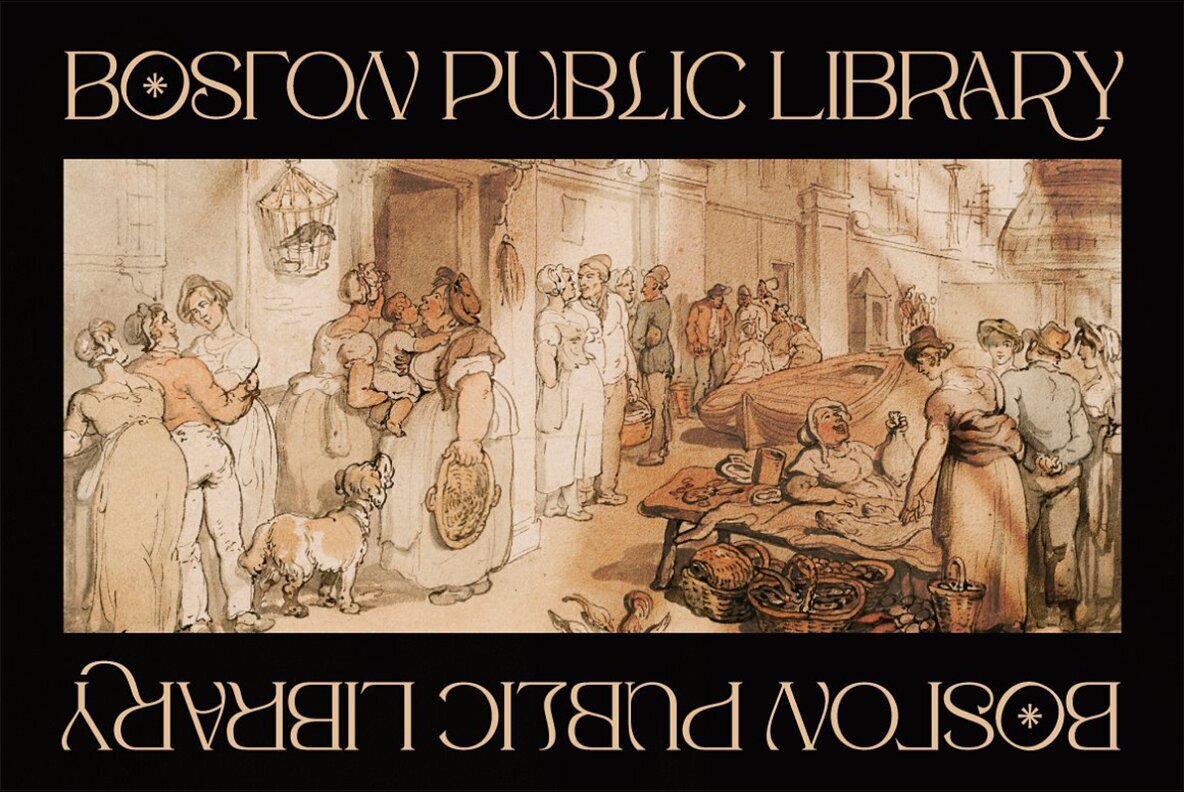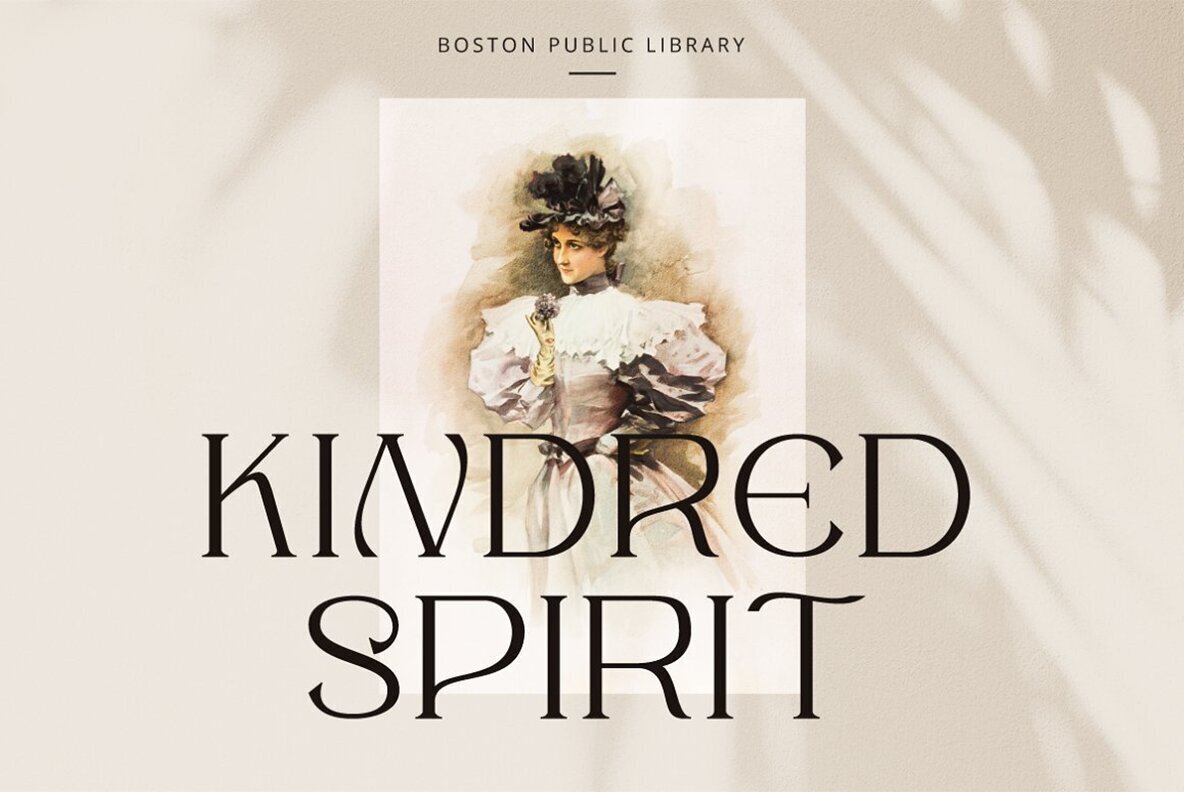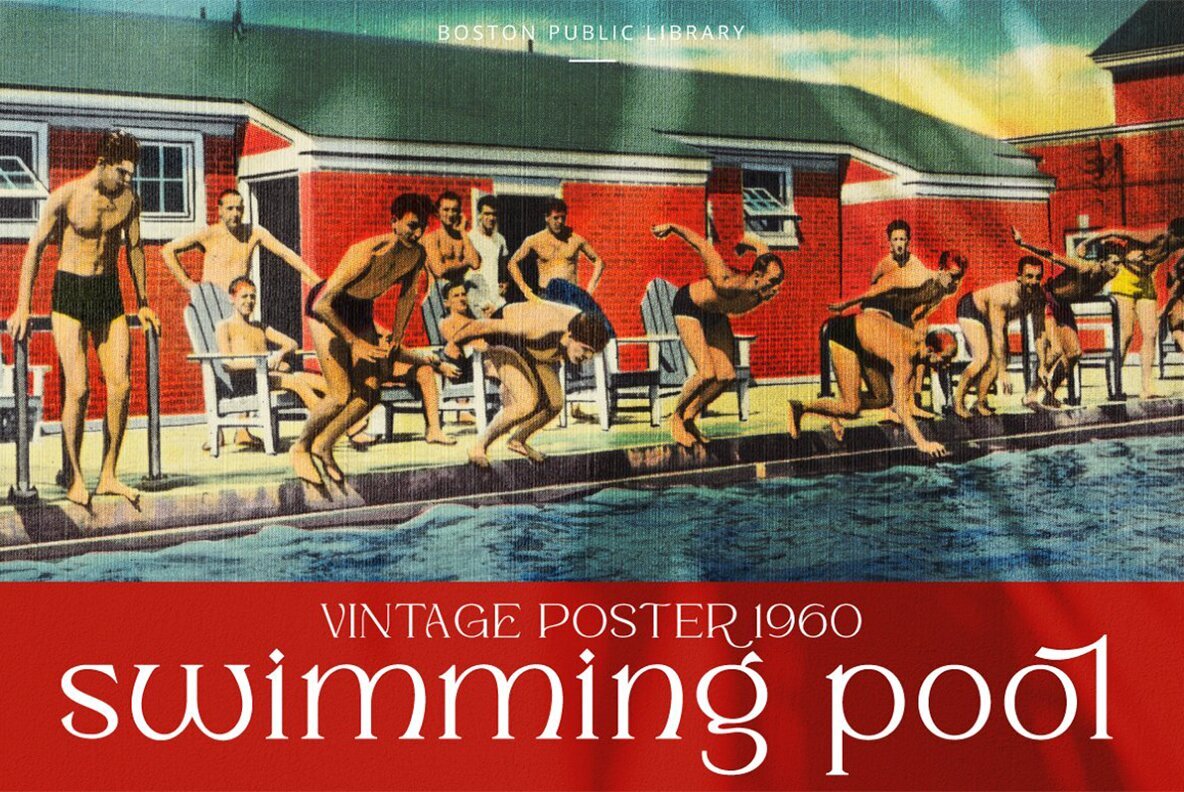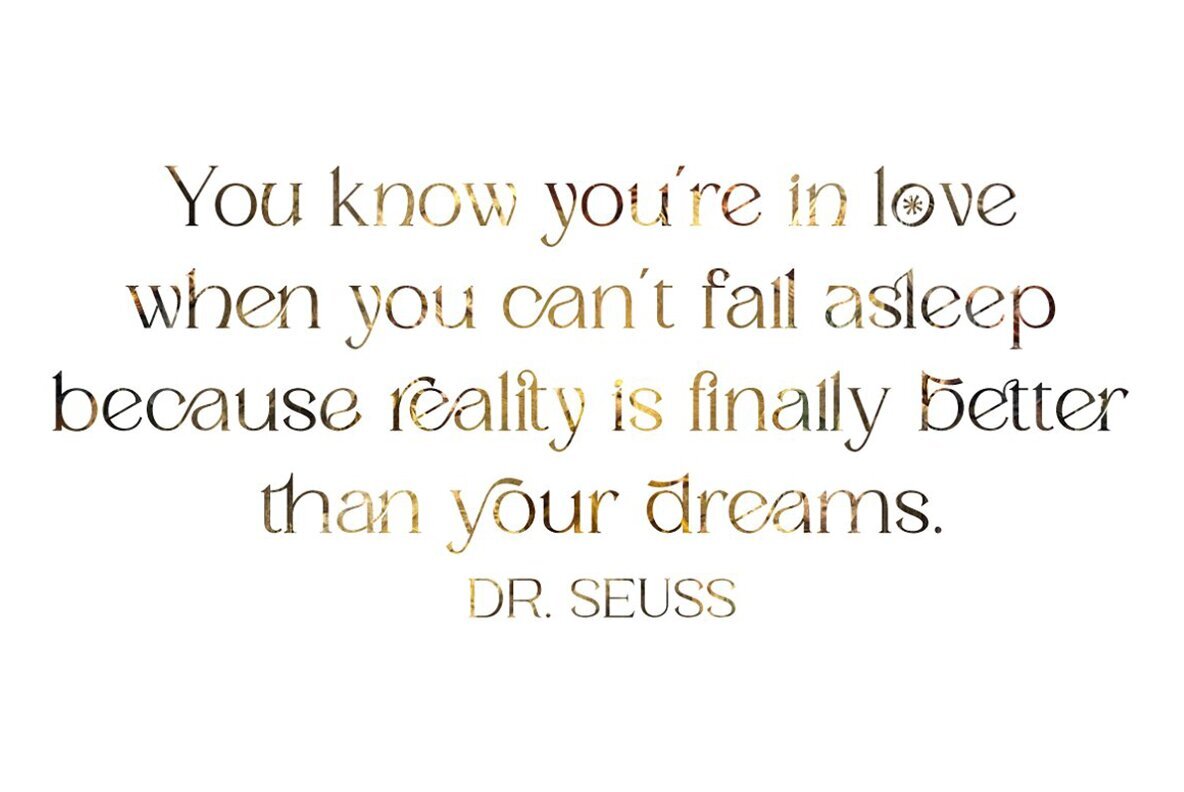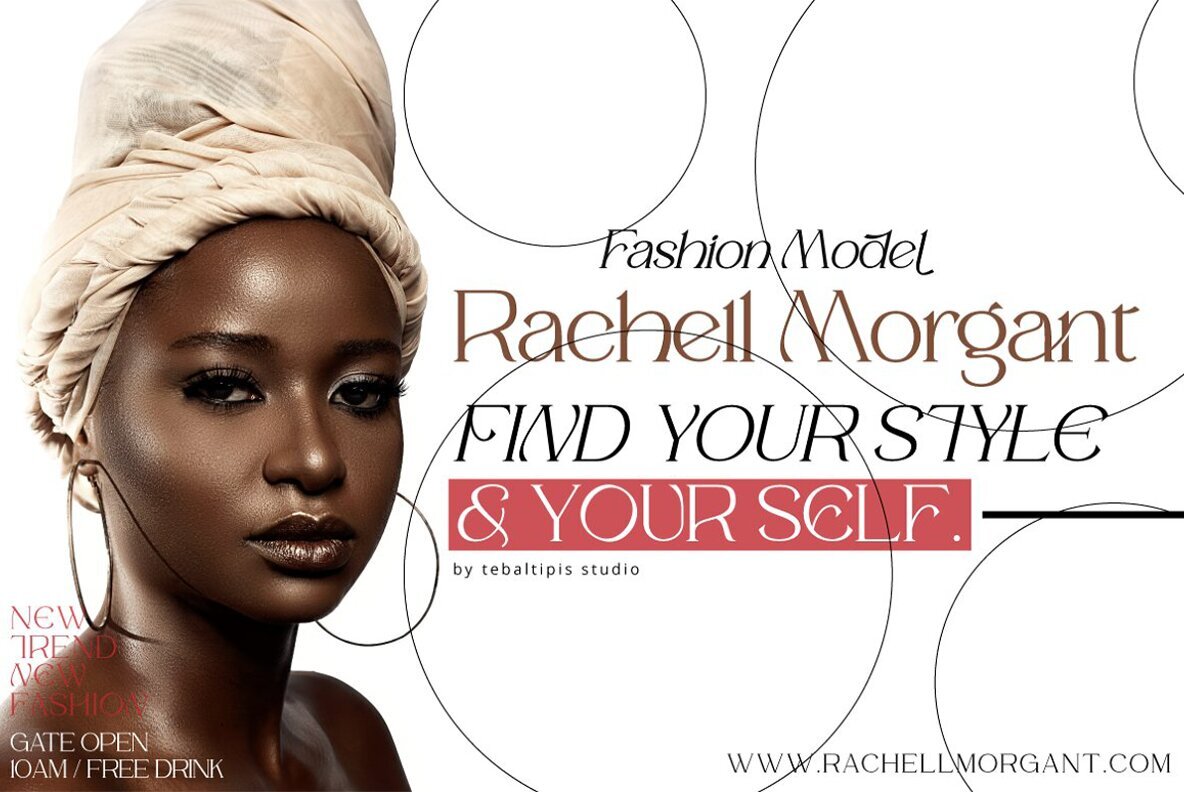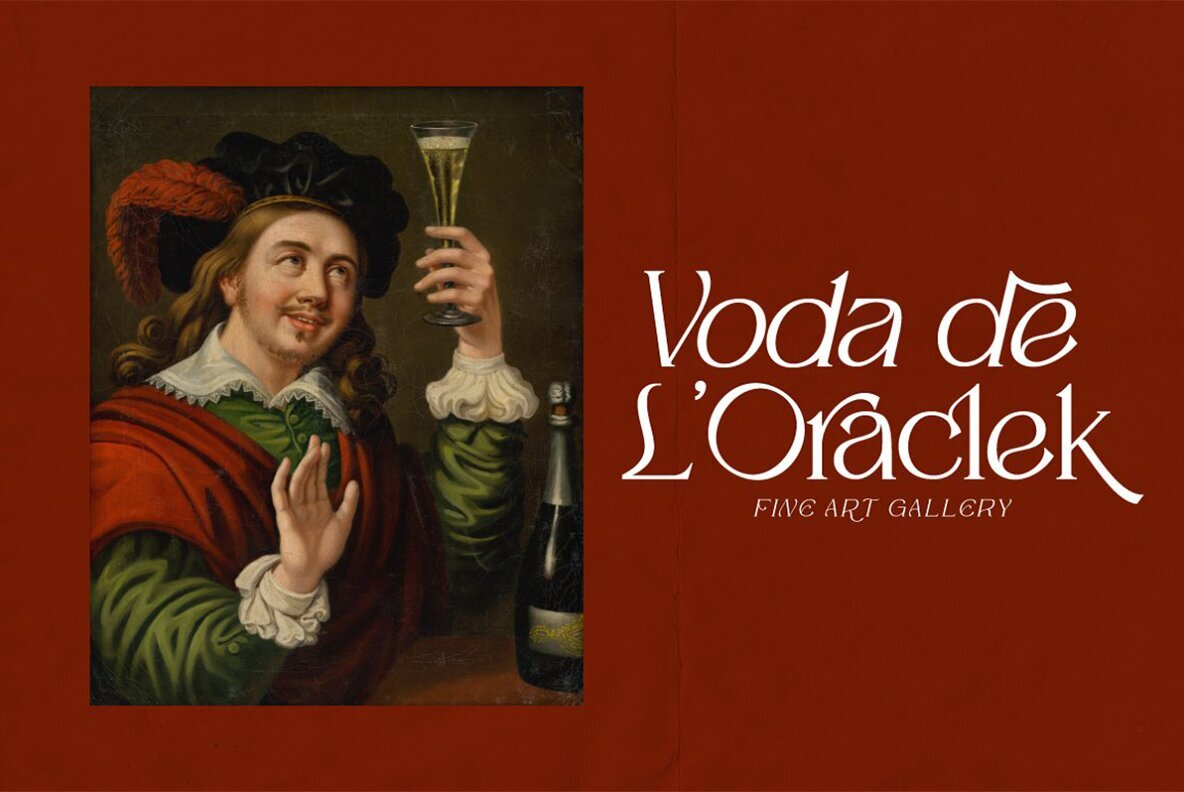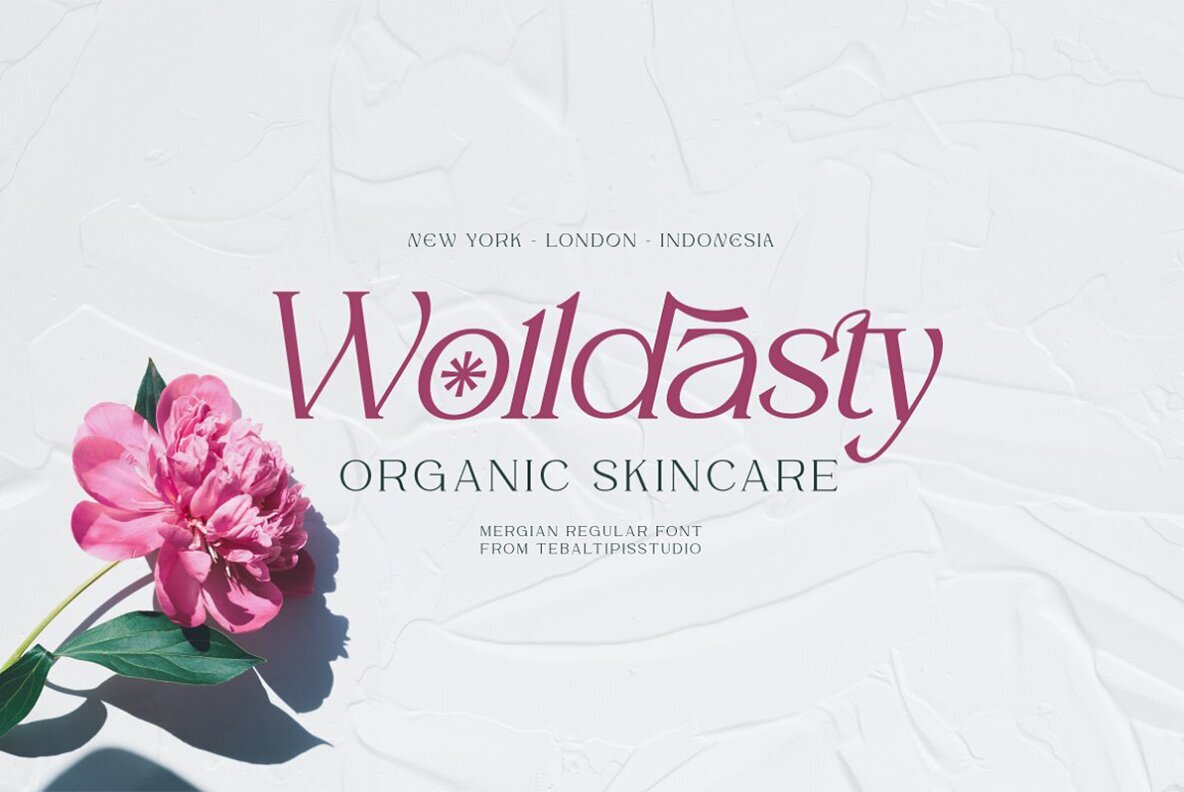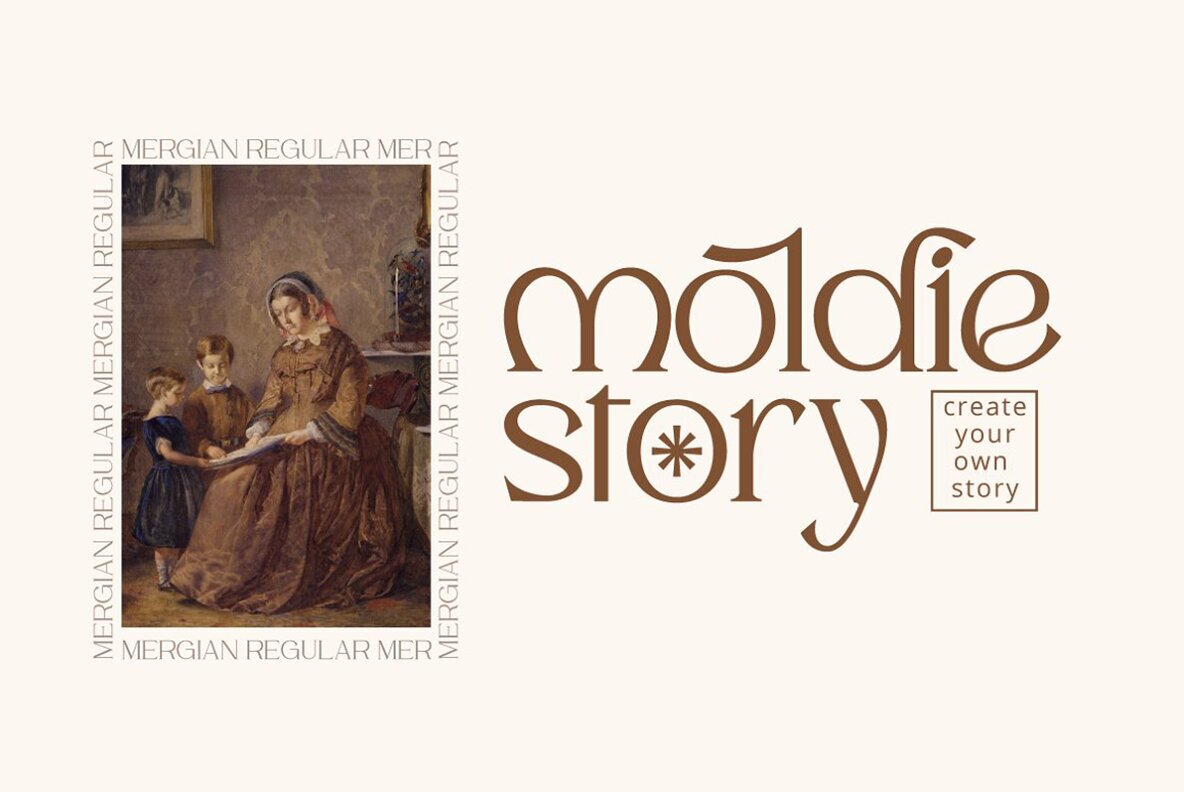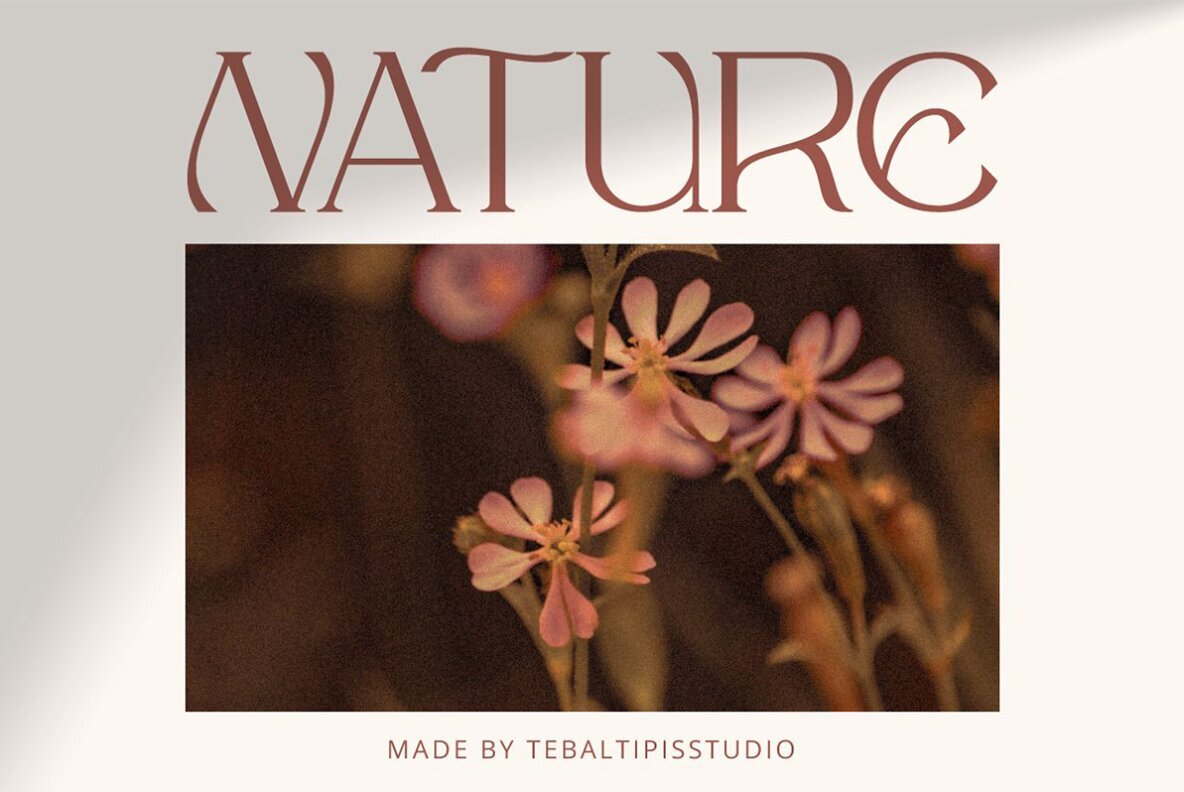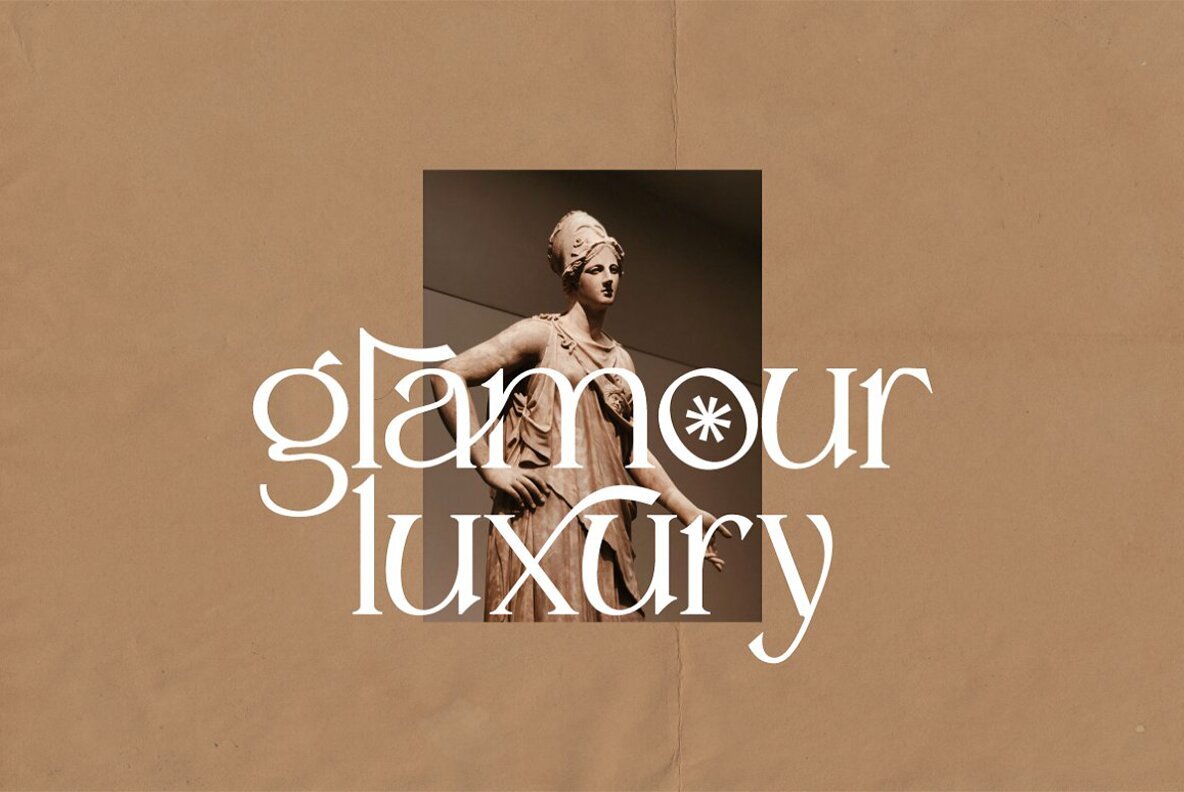
Mergian Font
The Mergian font by Tebaltipisstudio represents a perfect blend of sophistication and versatility, making it ideal for a variety of creative projects. With its modern ligature design, it's particularly well-suited for branding, logos, invitations, and mastheads, giving your work a touch of elegance.Mergian: Modern Ligature with Elegant Style